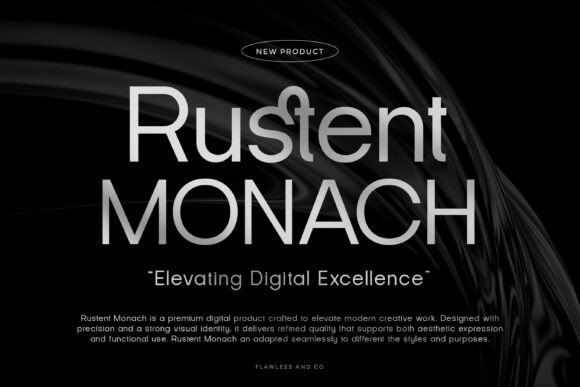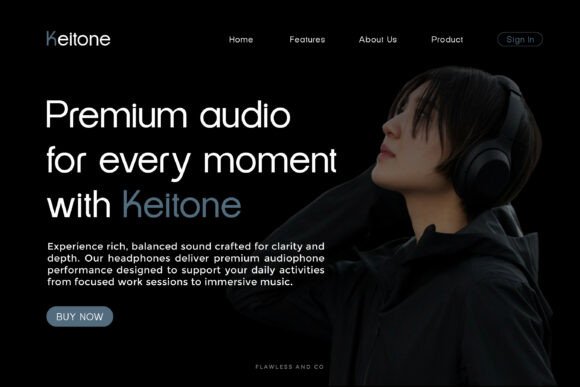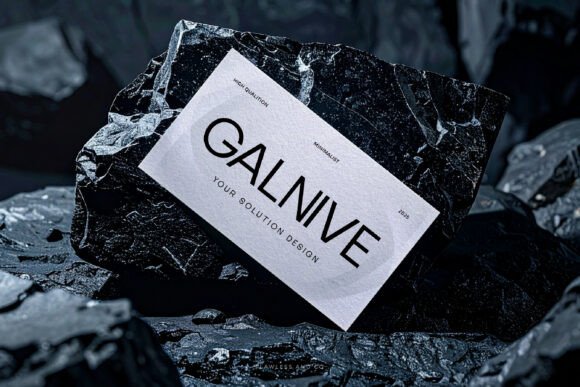
Introduction to Geltivo Font
Imagine you’re working on a high-stakes creative project, pouring your heart and soul into every detail. You’ve crafted the perfect visual narrative, but something’s missing – a design resource that truly elevates your message. This is where the Geltivo Font comes in – a game-changing, professional corporate sans serif font designed to deliver clarity, confidence, and a modern business aesthetic.
With its clean structure, balanced proportions, and refined simplicity, the Geltivo Font is the perfect solution for designers seeking a strong, trustworthy, and contemporary typographic presence. Whether you’re working on a logo, branding materials, or marketing campaigns, this versatile font ensures your message shines through with clarity and sophistication.
Key Features of Geltivo Font
- Designed with a unique, modern aesthetic, making it perfect for contemporary design projects.
Honest Review: Geltivo Font
I recently had the chance to work with the Geltivo Font in a creative project, and I must say, it’s been a game-changer. This high-quality design resource is perfect for anyone looking to add a touch of sophistication to their work.
The font itself is incredibly versatile, with a clean and modern aesthetic that works well for both print and digital projects. One of the standout features is the transparent background, which makes it easy to use in various design scenarios. ✨
Here are some of the things that I love about the Geltivo Font:
- High-quality design: The font is well-designed and looks great on screen.
However, there are a few limitations to be aware of:
- Limited language support: The font only supports a limited number of languages, which may be a concern for designers working on international projects.
- No bold or italic options: While the font is clean and modern, it would be nice to have some additional weight and style options to work with. ⚠️
Overall, I’m really impressed with the Geltivo Font. While it may not be perfect, it’s a great addition to any designer’s toolkit and is definitely worth checking out.
To get the most out of the Geltivo Font, use it in conjunction with a transparent background to create a seamless design. This design resource is also perfect for creating bold headings or titles, so be sure to experiment with different font sizes and styles to achieve the desired effect.